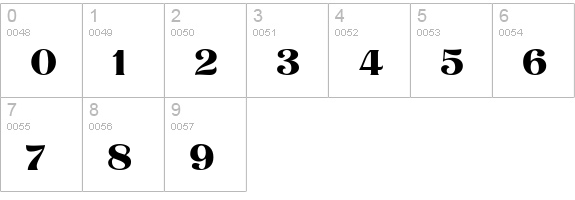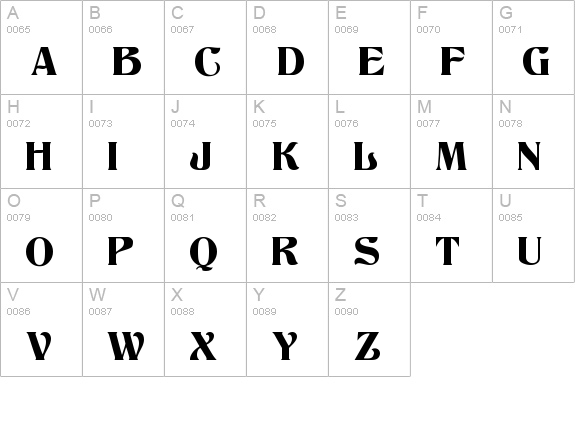
Titania MF Font Details
Titania MF is a stunning and versatile font that exudes elegance and sophistication. With its sleek lines and modern design, this typeface is perfect for a wide range of design projects, from branding to editorial layouts. The clean and crisp letterforms make Titania MF a standout choice for any designer looking to make a statement. What sets Titania MF apart is that it is not only visually striking but also free to use. That's right, this remarkable font is freely available to download at FontsMarket.com, making it accessible to designers of all levels. Whether you're working on a personal project or a professional assignment, Titania MF is sure to elevate your designs and leave a lasting impression. Add a touch of class and sophistication to your next project with Titania MF. Download this exquisite font for free today at FontsMarket.com and let your creativity shine.